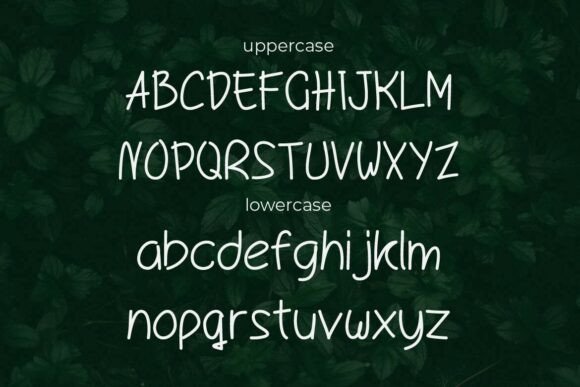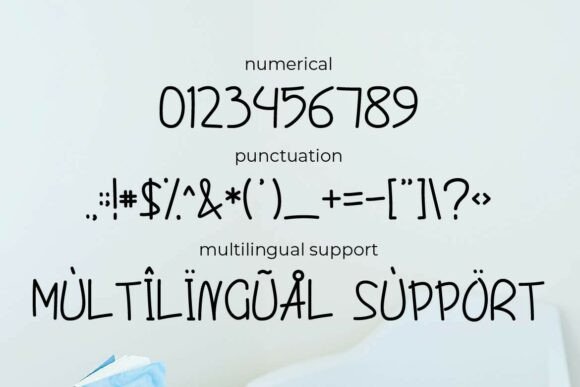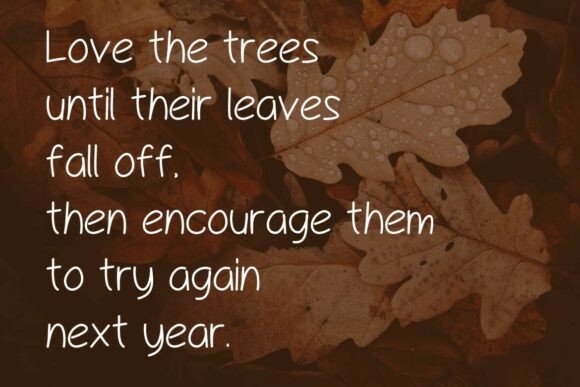
Bingroof Font: Adding a Personal Touch to Your Designs
In the world of typography, fonts play a crucial role in conveying the tone and personality of a design. If you’re looking for a font that can add a burst of personality to your projects, look no further than Bingroof. This fun and expressive handwritten font is perfect for designers and crafters who want to bring a light-hearted and personal touch to their work.
The Characteristics of Bingroof Font
Bingroof is a handwritten font that boasts casual strokes, an organic flow, and slightly quirky letterforms. These characteristics give the font a friendly and approachable feel, reminiscent of a note scribbled in your favorite notebook. The font’s irregularities and imperfections add to its charm, making it feel more human and relatable.
Uses for Bingroof Font
Bingroof is a versatile font that can be used in a variety of design projects. Here are some ideas to get you started:
- Social Media Graphics: Add a personal touch to your social media posts with Bingroof. The font’s playful and expressive nature makes it perfect for grabbing the attention of your audience.
- Product Packaging: Stand out on store shelves with packaging that features the Bingroof font. Its unique and quirky feel can help your product stand out from the competition.
- Branding: If you’re looking to create a brand that feels friendly and approachable, Bingroof is a great choice. The font’s casual and organic feel can help you establish a brand voice that resonates with your audience.
- Children’s Designs: Bingroof is a great choice for designs aimed at children. The font’s playful and whimsical nature makes it perfect for kids’ books, educational materials, and games.
- Greeting Cards: Add a personal touch to your greeting cards with Bingroof. The font’s friendly and expressive nature makes it perfect for conveying emotions and sentiments.
Why Choose Bingroof Font?
So, why should you choose Bingroof font for your design projects? Here are a few reasons:
- Unique and Expressive: Bingroof is a one-of-a-kind font that can help your designs stand out from the crowd.
- Easy to Read: Despite its quirky nature, Bingroof is easy to read and understand, making it perfect for body text and headlines.
- Versatile: Bingroof can be used in a variety of design projects, from digital graphics to print materials.
- Fun and Playful: The font’s playful and whimsical nature makes it perfect for designs that need a light-hearted touch.
Tips for Using Bingroof Font
Here are a few tips for getting the most out of Bingroof font:
- Use it with Contrasting Fonts: Pair Bingroof with contrasting fonts to create visual interest and hierarchy in your designs.
- Experiment with Colors: Bingroof looks great in a variety of colors, so don’t be afraid to experiment and find the perfect hue for your design.
- Keep it Simple: While Bingroof is a playful font, it’s still important to keep your design simple and easy to read.
Bingroof font is a fun and expressive handwritten font that can add a burst of personality to any design. Its casual strokes, organic flow, and quirky letterforms make it perfect for designers and crafters who want to bring a light-hearted and personal touch to their work. With its versatility, ease of use, and unique charm, Bingroof is a great choice for a wide range of design projects.